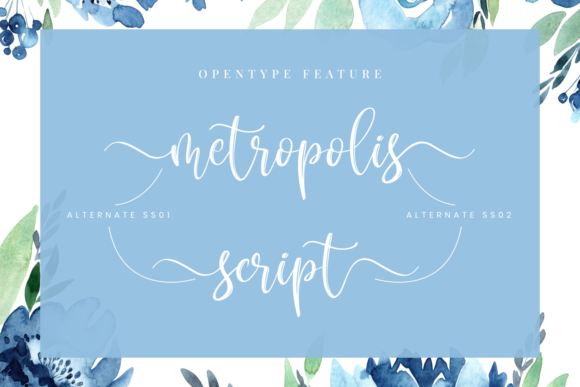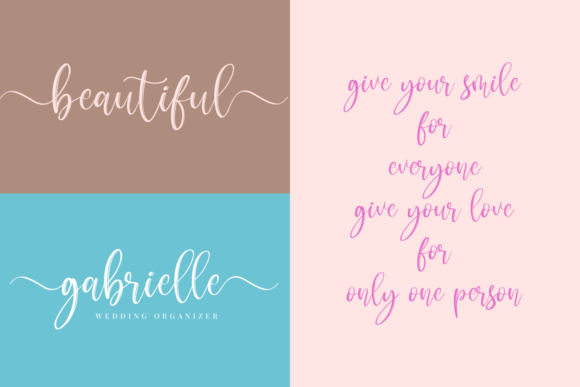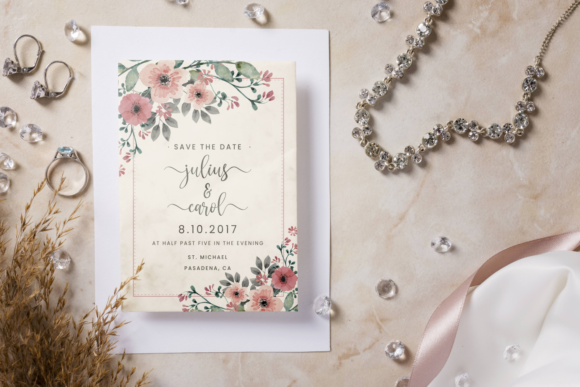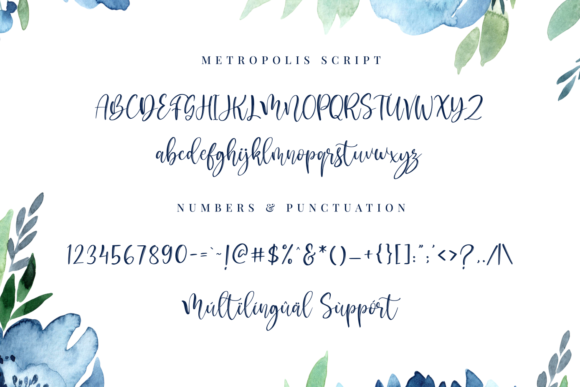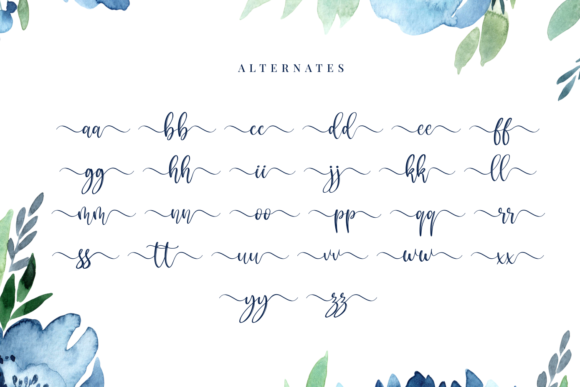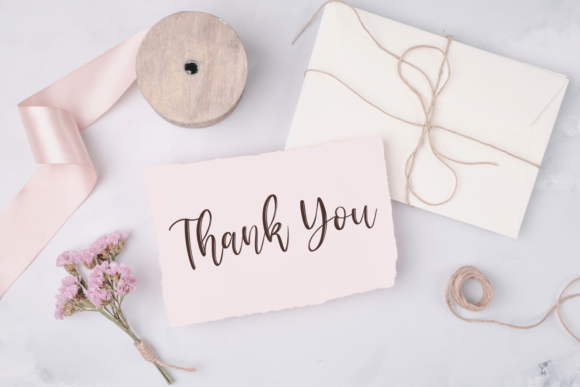
Introduction to Metropolis Script Font
Metropolis Script is a cute and modern handwritten font.
It features amazing swashes Fall in love with its authentic feel and use it to create gorgeous wedding invitations, beautiful stationary art, typography logo, eye-catching social media posts, and cute greeting cards.
Key Features of Metropolis Script Font
Why Choose Metropolis Script Font?
Metropolis Script Font offers exceptional quality and versatility, making it a valuable addition to your design toolkit. Whether you’re creating for personal projects or commercial use, Metropolis Script Font delivers professional results.